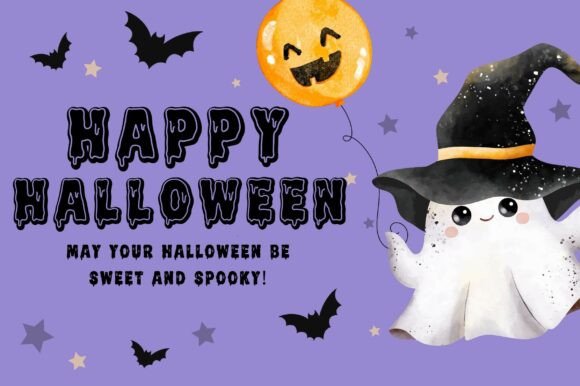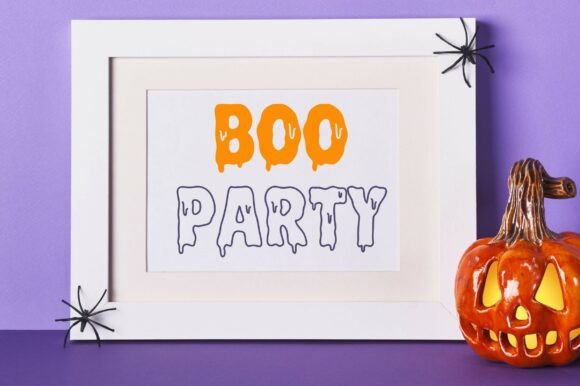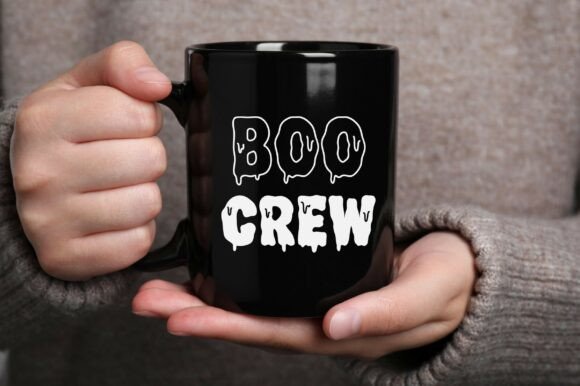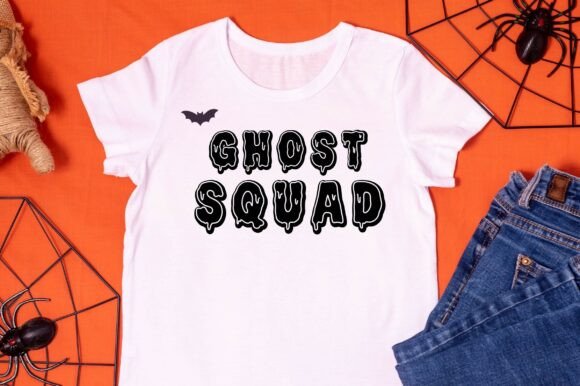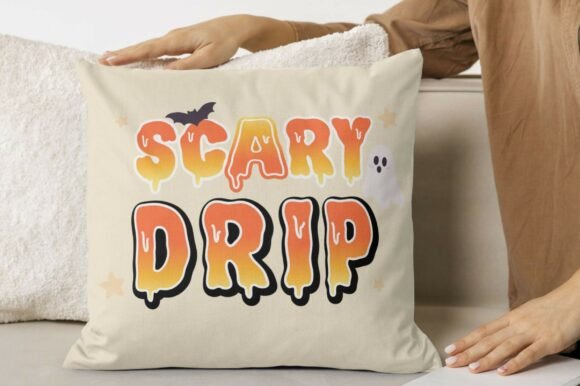
Introduction to Scary Drip Font
Have you ever stumbled upon the perfect font for a creative project, and your mind instantly starts racing with ideas? That’s exactly what happened when I discovered the Scary Drip Font. Its unique blend of spooky and cute elements immediately captured my attention, and I couldn’t wait to experiment with it.
As designers, we’re always on the lookout for high-quality design resources that can elevate our work and bring our vision to life. The Scary Drip Font is a valuable addition to any designer’s toolkit, offering a versatile and playful font that’s perfect for Halloween-themed projects. Whether you’re working on a spooky t-shirt design or creating festive social media graphics, this font is sure to add an instant personality to your work.
With its transparent background and three unique styles – Regular, Outline, and Shadow – the Scary Drip Font is a free download waiting to be explored. Its readability ensures that your message stays clear, even with all the drippy, spooky flair. So, why not give it a try and see how the Scary Drip Font can bring your creative project to life?
Key Features of Scary Drip Font
- Unique, bold, and eerie design makes it perfect for horror-themed creative projects.
- Perfect for adding a touch of spookiness to your designs, from posters to digital artwork.
Honest Review: Scary Drip Font
As a designer, I’m always on the lookout for unique and high-quality design resources to elevate my creative projects. The Scary Drip Font is one such resource that caught my attention, and I’m excited to share my honest review.
What works well: ✨ The Scary Drip Font is available as a free download, making it an excellent choice for designers working on a budget. The font has a bold, gothic aesthetic that’s perfect for creating a spooky or mysterious atmosphere in your designs. The transparent background makes it easy to combine with other elements and textures. The high-quality design ensures that the font looks crisp and clear on various devices.
What could be improved: ⚠️ While the Scary Drip Font is a great addition to any designer’s toolkit, it’s worth noting that it’s a one-color font. This means that you’ll need to use color manipulation or layering techniques to achieve the desired visual effect. Additionally, some users may find the font’s bold style overwhelming for certain design projects.
Overall impression: The Scary Drip Font is a solid choice for designers looking for a unique and high-quality font for their creative projects. With its bold aesthetic and transparent background, it’s perfect for creating eye-catching designs. However, designers should be aware of its limitations and plan accordingly.
- Perfect for creating a spooky or mysterious atmosphere
The Scary Drip Font is a unique and versatile design element that can add a touch of eeriness to your creative project. This free download is available for instant use, and its transparent background makes it easy to integrate into your design.
To get the most out of the Scary Drip Font, experiment with different sizes, colors, and placements. You can also use it in combination with other design elements to create a unique and eye-catching look.
The Scary Drip Font is perfect for Halloween-themed designs, spooky artwork, and even horror movie posters. Its versatility makes it a great addition to any creative project.